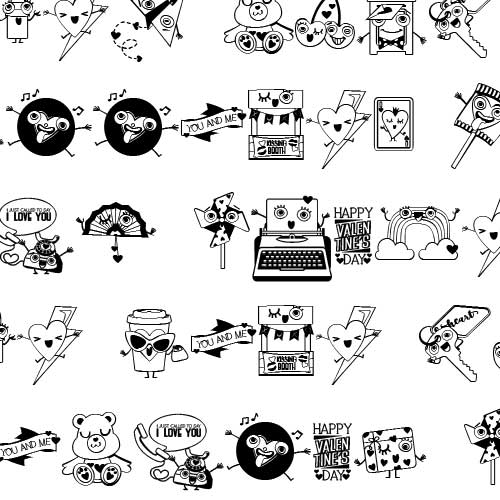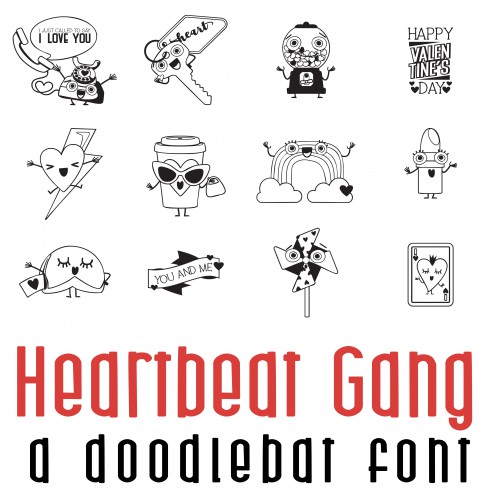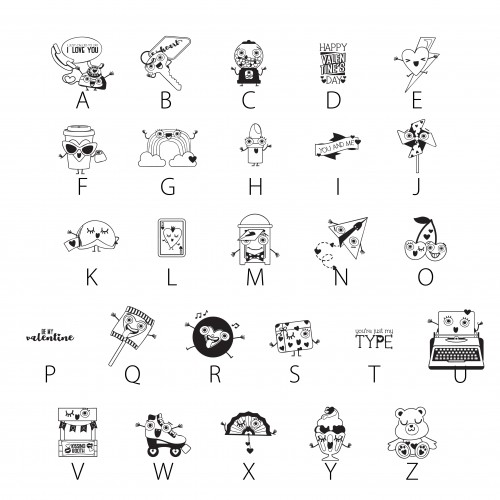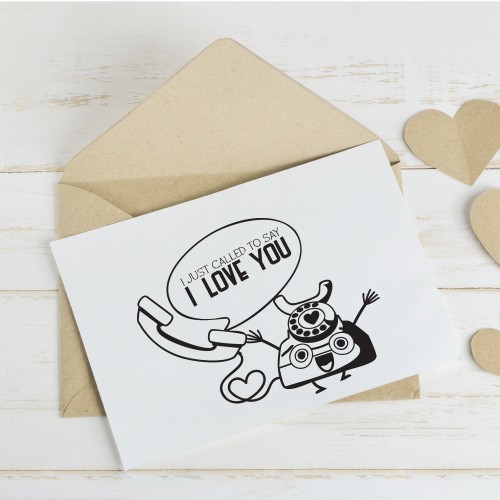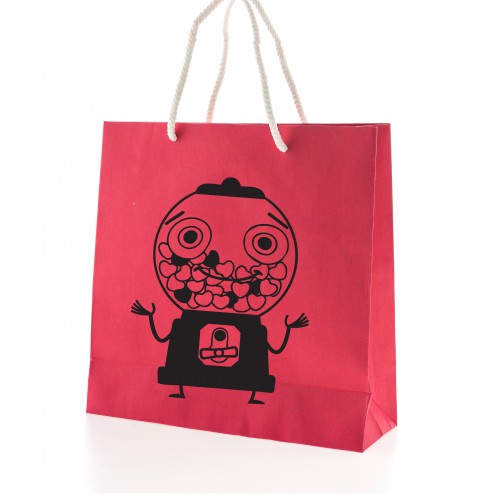
DB Heartbeat Gang - DB
This whimsical doodlebat font features 26 adorable Valentine themed imagery perfect for cards, crafts, gifts, planner stickers, scrapbook pages and more!